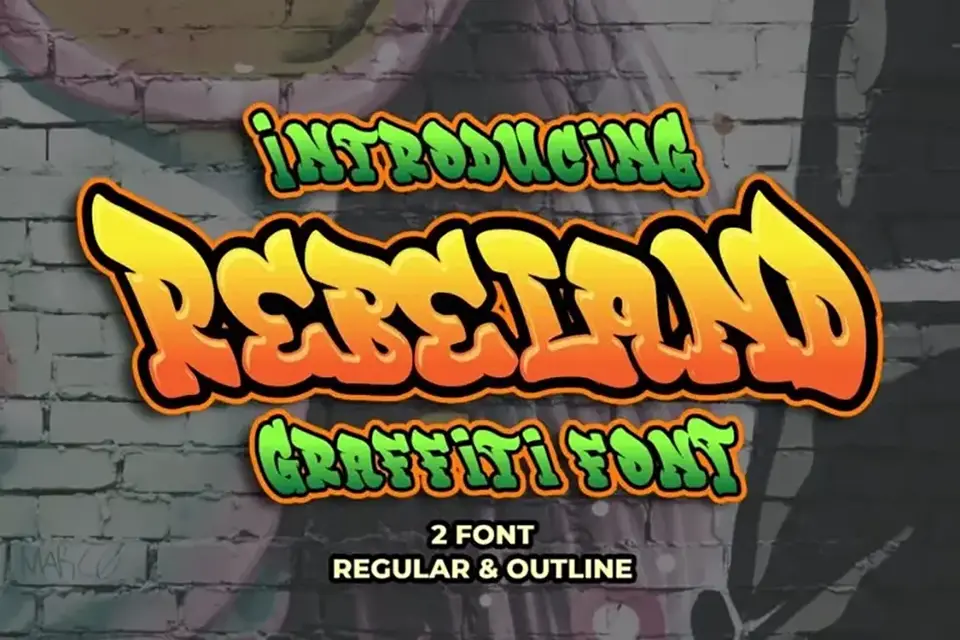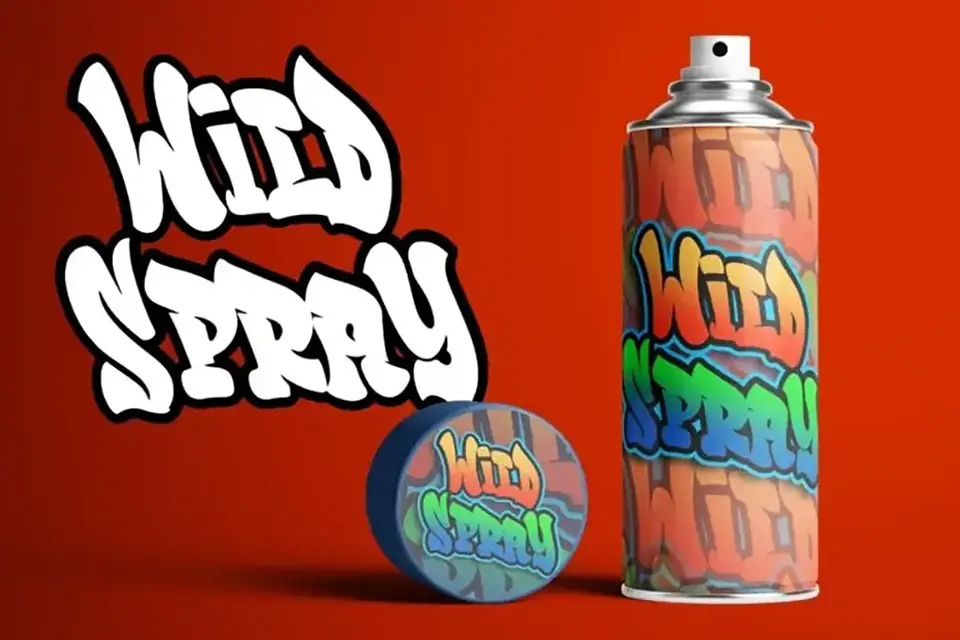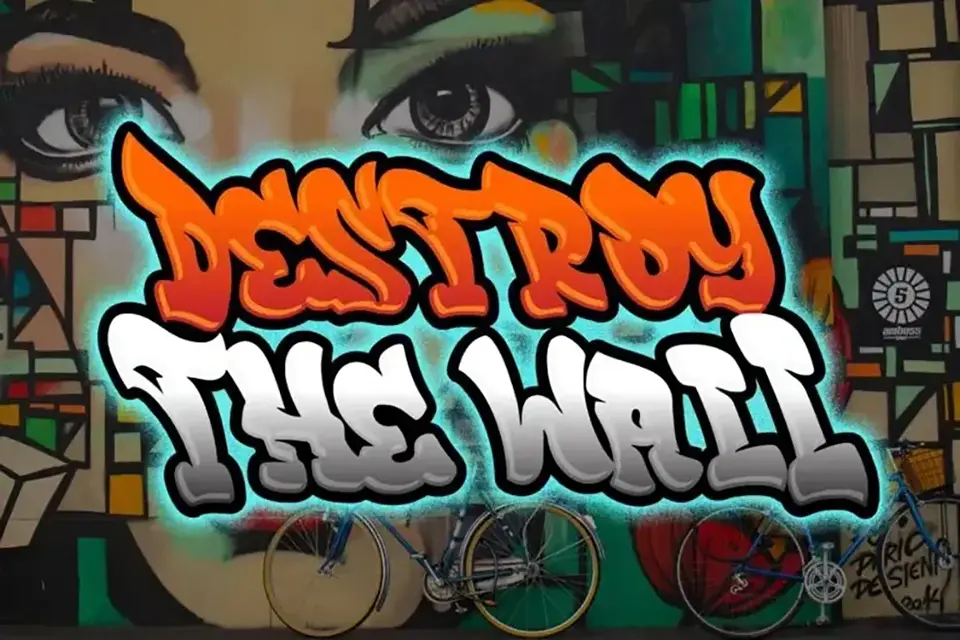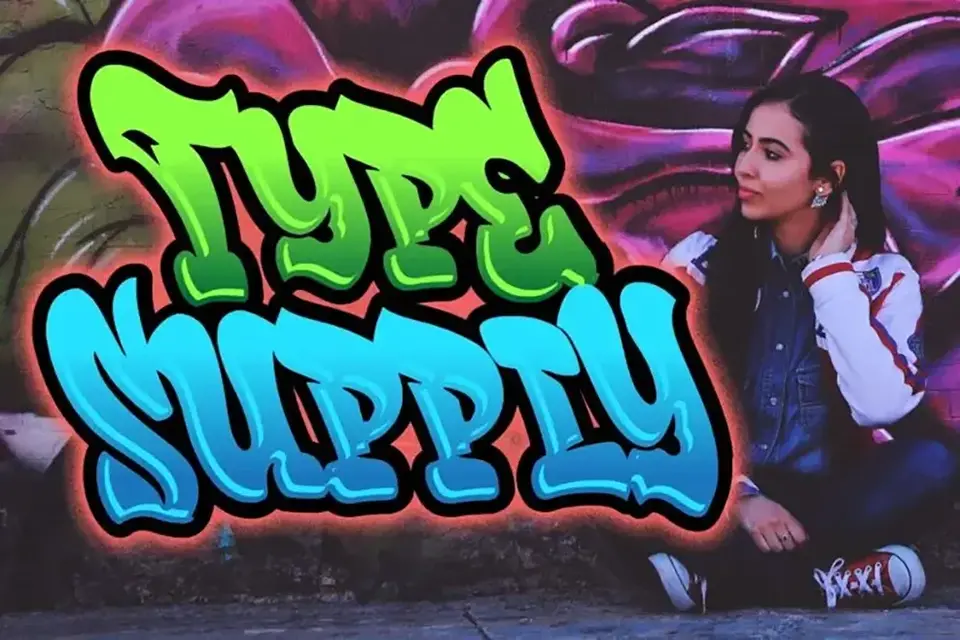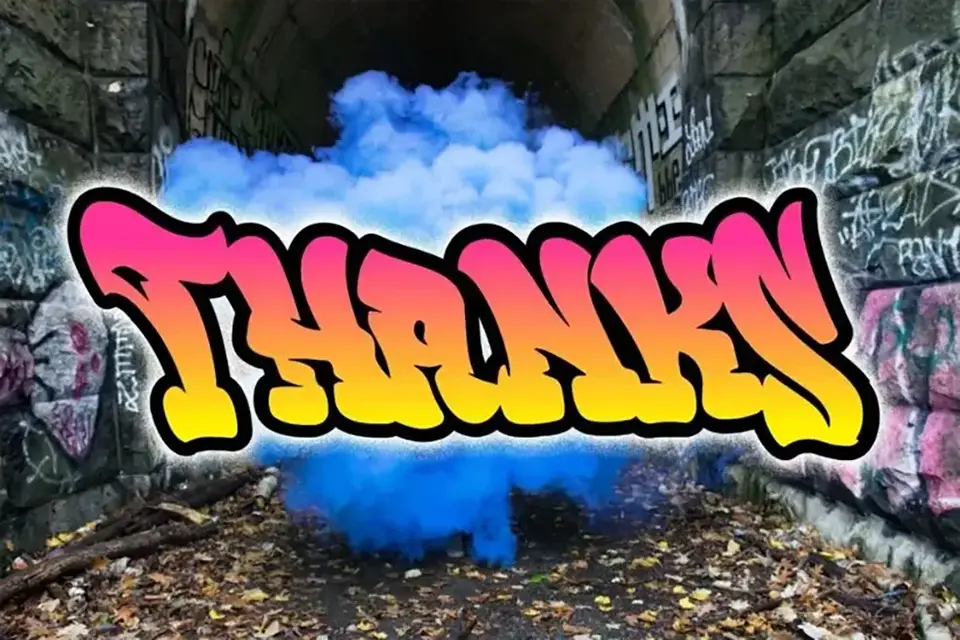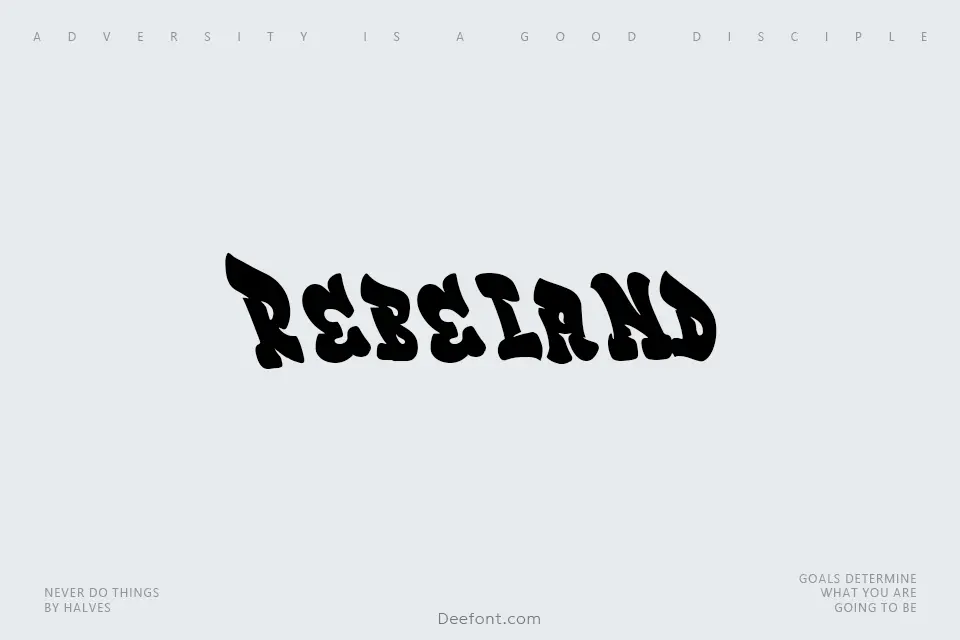
Rebeland Font
Rebeland is an urban graffiti-inspired display font created by Blankids Studio, perfect for adding a fun and playful touch to your creative designs. With its bold, energetic strokes and contemporary flair, this typeface excels in creating eye-catching posters, flyers, and eye-grabbing headlines. Featuring comprehensive multilingual support and both regular and outline variants, Rebeland offers versatile options for diverse design projects. The font’s dynamic character and casual aesthetic make it ideal for music promotions, children’s publications, comic illustrations, and contemporary branding projects that demand visual impact and creative expression.